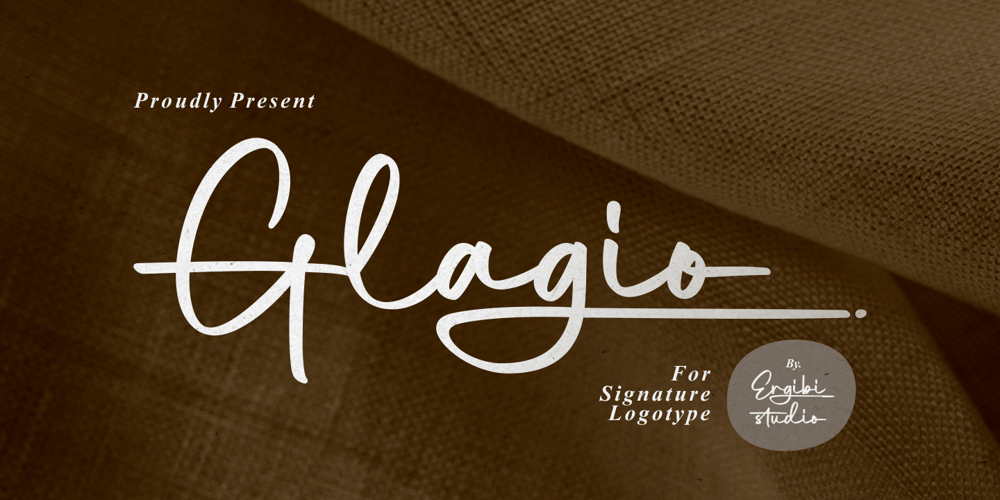
Glagio Font Family was designed by Riyadh Rahman and published by Ergibi Studio. Glagio contains 1 styles and family package options. Glagio is a Signature font for handwritten logotype with alternative characters. perfect font for creating photography studios or personal photography logos, best for initial logo or brand signatures.Glagio includes a full set of beautiful handwritten upper and lower case letters, numbers, assorted punctuation marks. All lowercase letters include end strokes, providing a cool handwriting style.What’s Included : Standard glyphs Ligatures International Accent Works on PC & Mac Simple installations If there is a problem, question, or anything about my fonts, don’t hesitate to ask!Big Thanks ~ Ergibi Studio